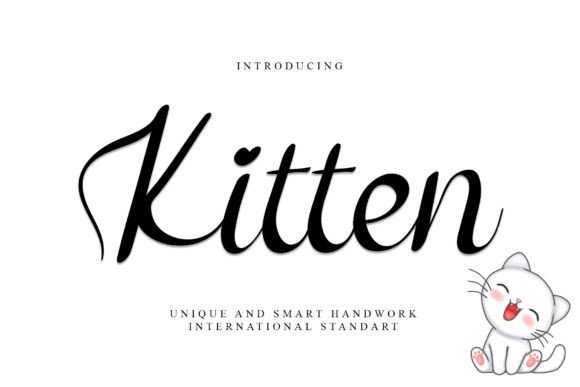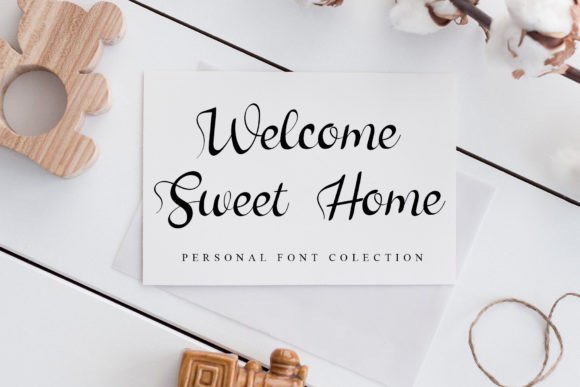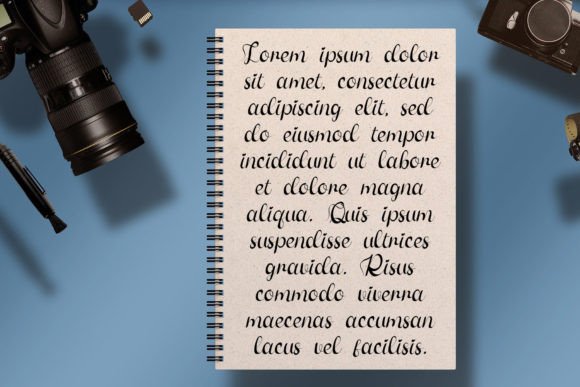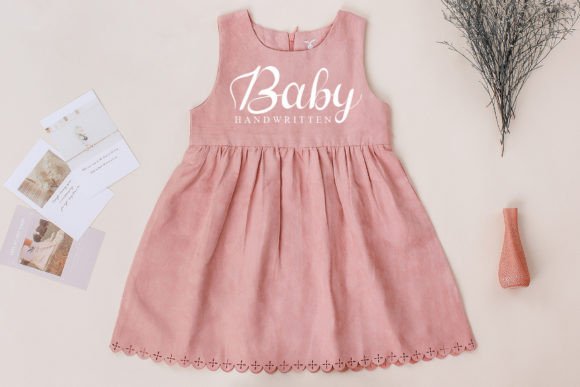
About Kitten Font
**Kitten Font: Unique Elegance Crafted for Your Creative Masterpieces**
Introducing “Kitten,” a font that embodies uniqueness and elegance, exclusively designed for your creative projects. With a professional hand touch, this font is a perfect choice for a variety of applications. Whether you’re working on wedding invitations, birthday cards, or any type of party announcement, Kitten infuses a touch of sophistication. It’s equally well-suited for school assignments and other significant events, enhancing your creative ideas with its carefully crafted elegance.
**Unique and Elegant Design:**
Kitten boasts a design that is both unique and elegant, making it stand out among fonts. Crafted with meticulous attention to detail, this font radiates sophistication, suitable for a diverse range of projects. From formal presentations to creative endeavors, Kitten adds a distinctive touch to your designs.
**Versatile Usage:**
This font is remarkably versatile, seamlessly integrating into various projects. Whether it’s a wedding invitation, a birthday card, or a school assignment, Kitten elevates the visual appeal with its elegant presence. Its adaptability across different themes and styles makes it a reliable choice for a spectrum of creative applications.
**Perfect for Creative Ideas:**
Kitten is designed to complement your creative ideas. Its professionally handcrafted strokes and unique design elements make it a valuable asset for expressing your creativity. Applying this font to your projects enhances their visual appeal, making them more captivating and memorable.
**Accessible Glyphs:**
**Crafted with Care:**
Every aspect of Kitten is carefully crafted, reflecting a commitment to providing a font that exudes professionalism and elegance. This font is a testament to precision and quality, ensuring that your creative endeavors are presented with sophistication.
Apply Kitten to your projects, and let its unique elegance transform your creative ideas into masterpieces. Whether you’re designing for celebrations, academic assignments, or other significant events, Kitten is the font that adds a touch of sophistication, making your work truly exceptional.